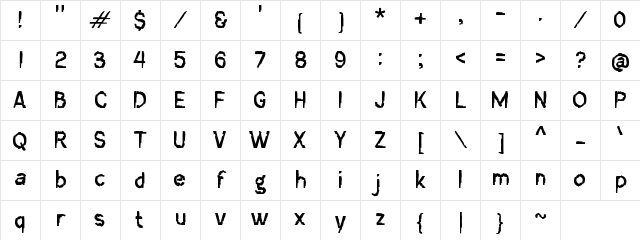
Design Context for f Frabotta
f Frabotta is a composed and adaptable typeface that performs quietly and consistently across a wide range of design contexts.
Pro Tip: Use f Frabotta in both headline and body roles to test its range before committing to a single application.